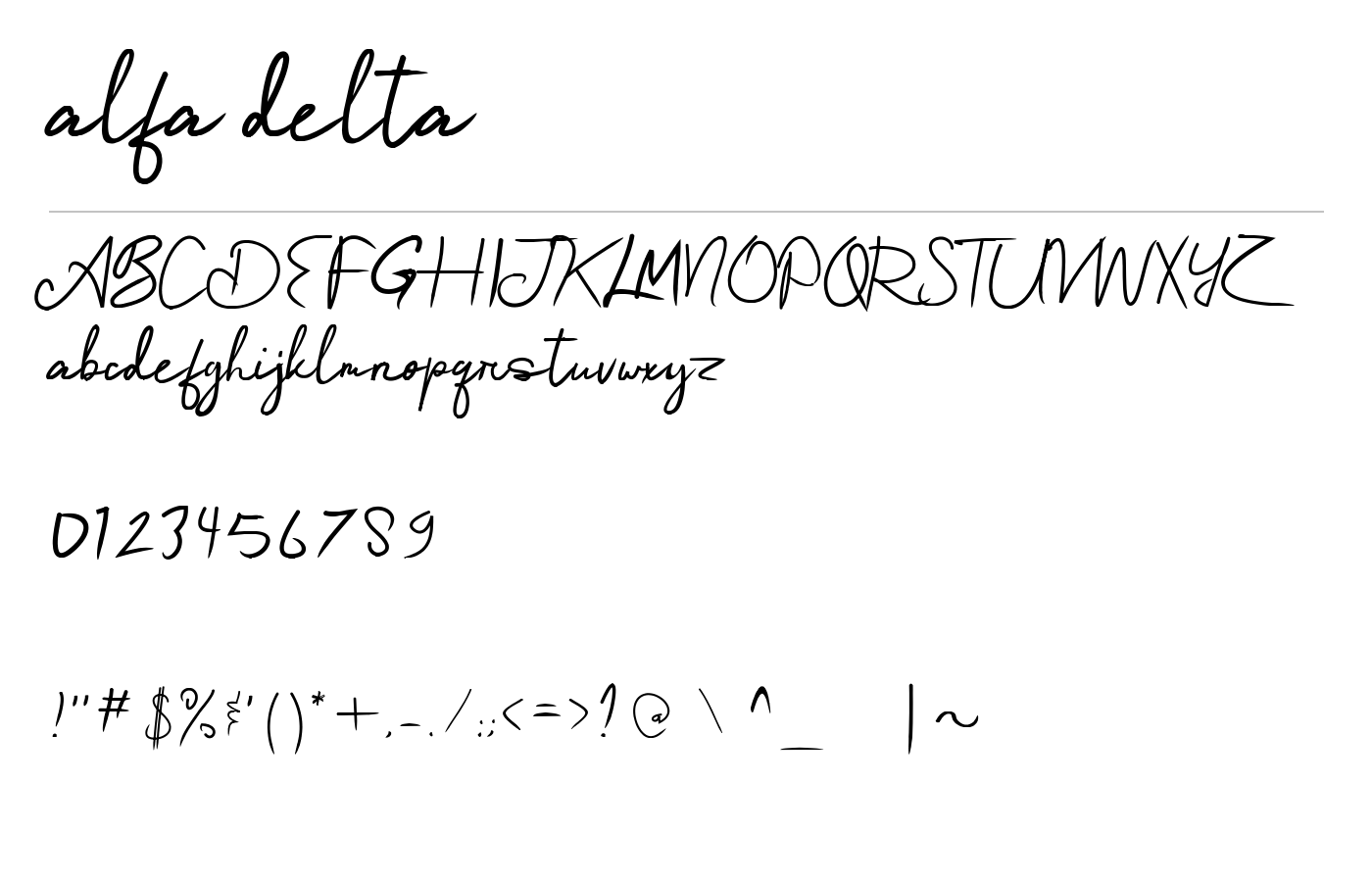
Alfa Delta is a playful and elegant handwritten script font that features a light, airy stroke with a natural, flowing style. Its tall x-height and slightly irregular letterforms create a casual, personal feel, making it ideal for creative branding, invitations, and expressive headlines where a touch of personality and charm is desired. This font works well in projects that benefit from a friendly yet refined handwritten look.
alfa delta Font